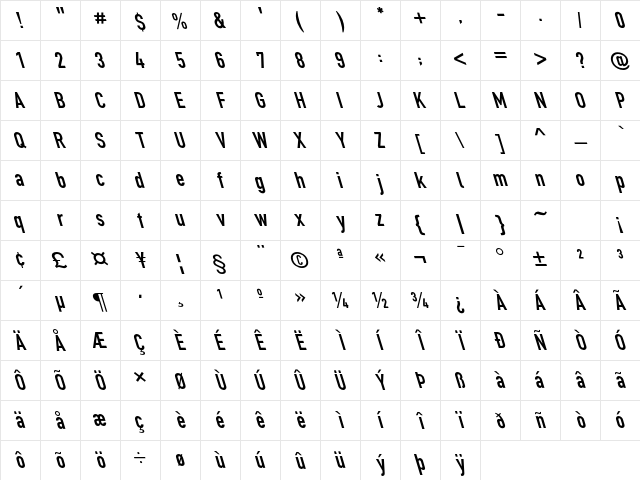
Din Kursivschrift LeftEng
Design Context for Din Kursivschrift Typeface
Din Kursivschrift takes a measured approach to typography — its balanced proportions and neutral character make it a reliable workhorse for both digital and print work. Its italic angle brings a sense of urgency and motion to the letterforms.
Pro Tip: Use Din Kursivschrift for emphasis, pull quotes, and subheadings where its slanted energy can add rhythm to the layout.